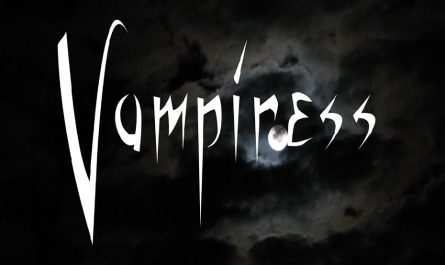
Rain Font is a fancy various typeface that features unique letters with sharp serif details for more flair and style. Add it to your posters for more magic!
A famous graphic designer Sabrina Mencarelli is who takes the credit for creating and sharing this font.
All the texture of the typeface looks like basic fonts but a fancy touch you will also observe in its letters. So, this is its main identity of it. So, it helps to make it cool and stylish.
Maybe you have seen some designers where fancy fonts are used. So, if you also want to create such kinds of designs then it becomes a good choice.
Therefore, its unique superior features guarantee a decent class in your design. For more information, please take a look at the images on the font map.
You can use it for like creating logo designs, greetings cards, branding, book covers, banner designs, title designing, watermarks, poster making, invitations, printing in the fabric industry, and many other relating approaches.